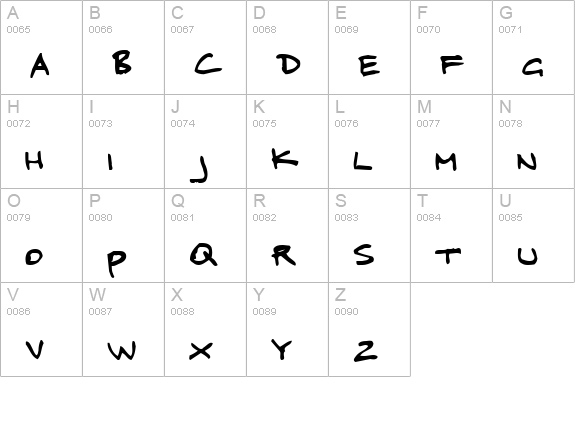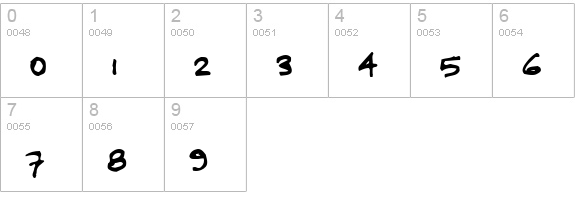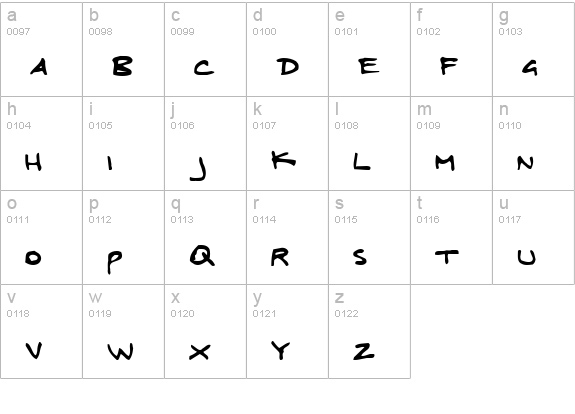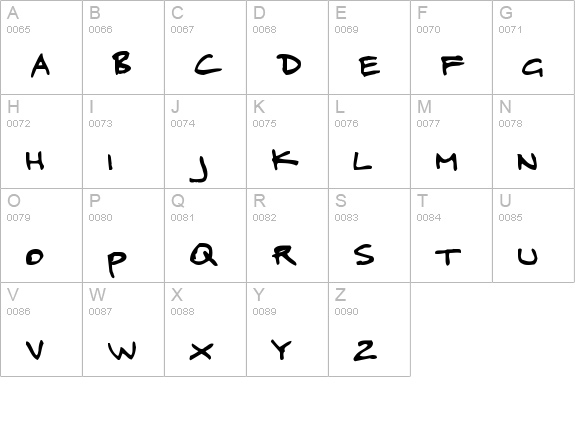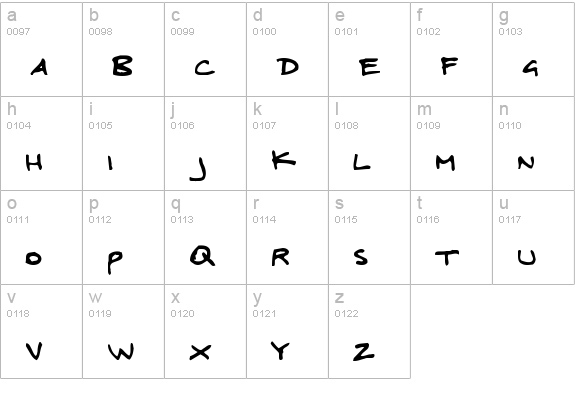
Megalomaniax KG Font Details
The Megalomaniax KG font is a bold and eye-catching typeface designed for those who want to make a statement with their typography. This unique font features strong, exaggerated letterforms that exude confidence and power. Perfect for headlines, logos, and branding, Megalomaniax KG demands attention and commands respect. What's even better is that Megalomaniax KG is available for free download at FontsMarket.com. That's right, you can add this striking font to your collection at no cost, making it a valuable addition to any designer's toolkit. Don't miss out on the opportunity to elevate your designs with the commanding presence of Megalomaniax KG. Download it today and let your creativity shine!